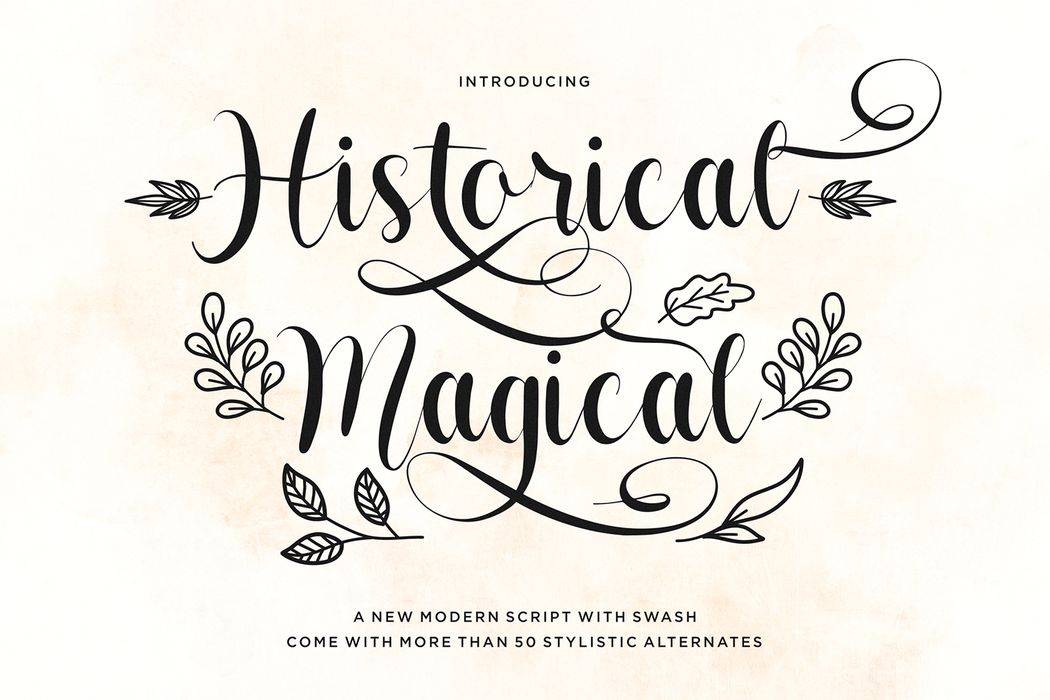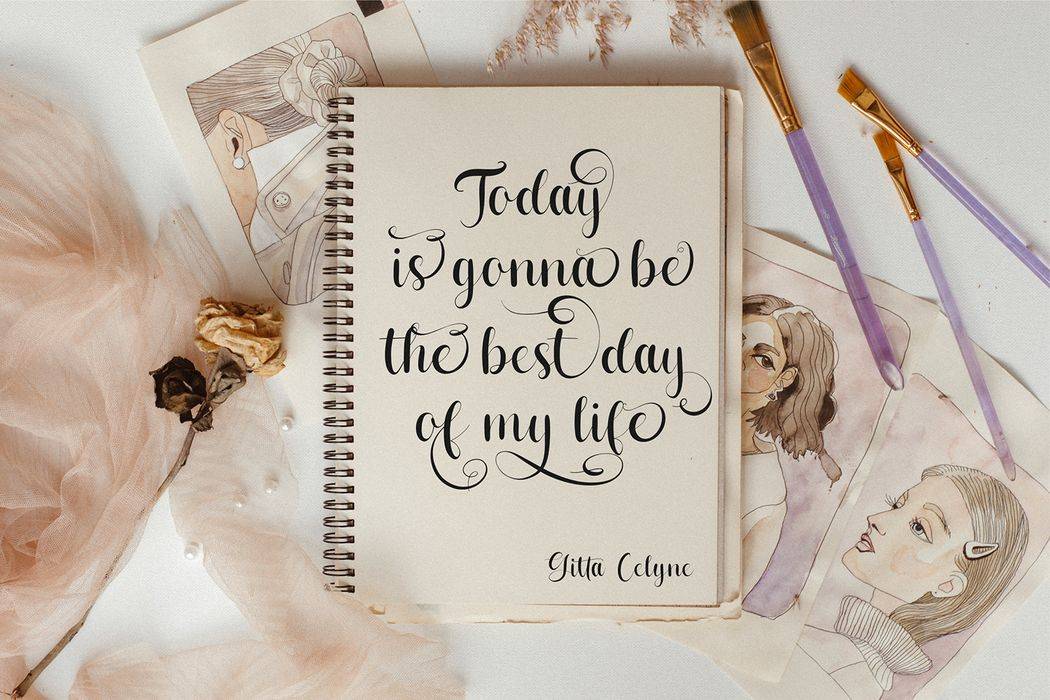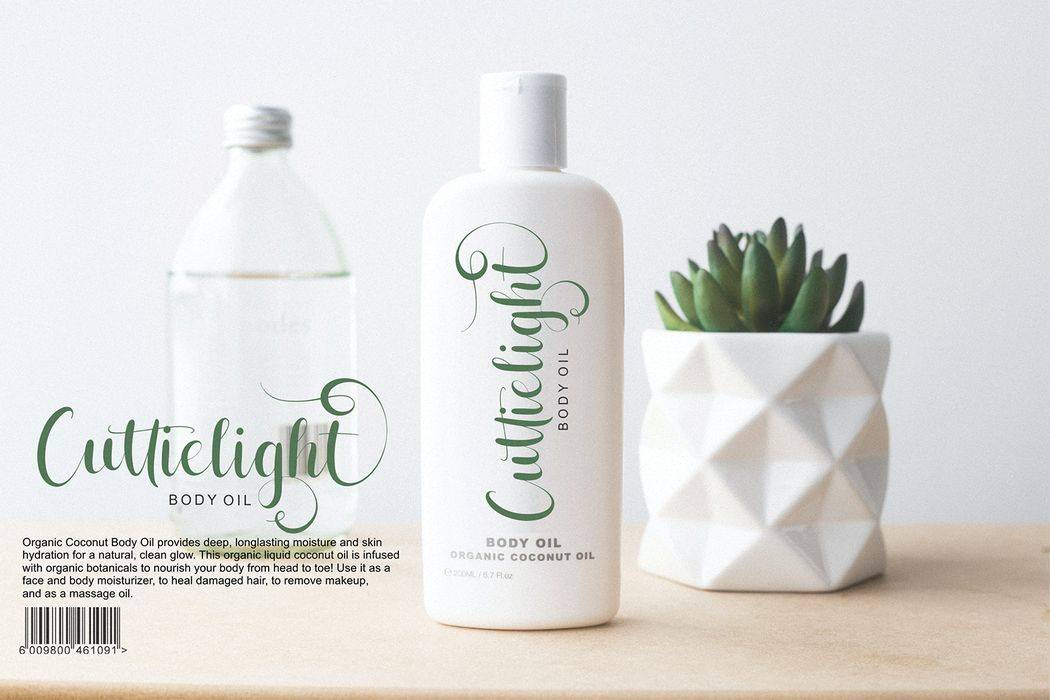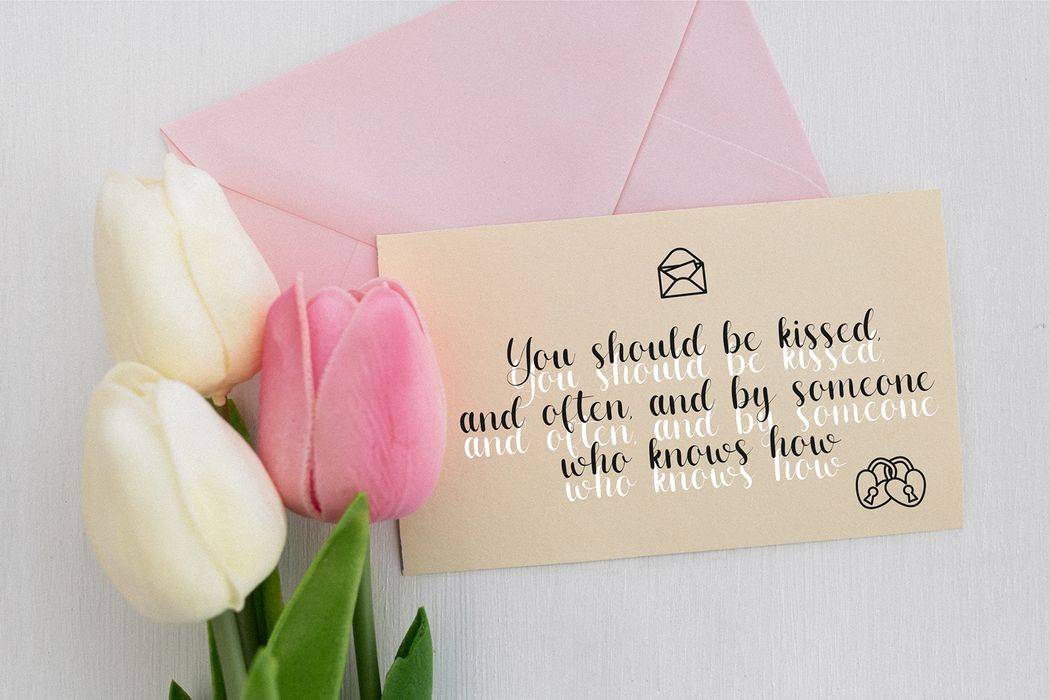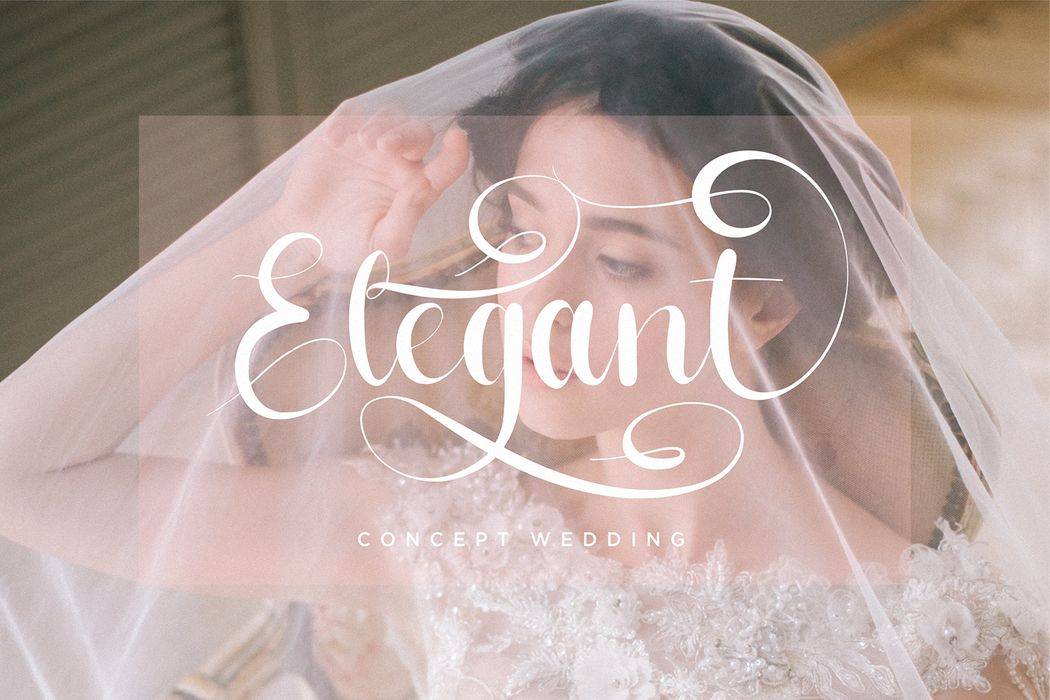
Historical Magical Font is an elegant script typeface with a flowing, handwritten style characterized by smooth, varied stroke widths and graceful flourishes. Its refined curves and high contrast create a sophisticated and whimsical feel, making it ideal for wedding invitations, luxury branding, and decorative headlines where a touch of classic charm and enchantment is desired.
Historical Magical Font
About Historical Magical Font